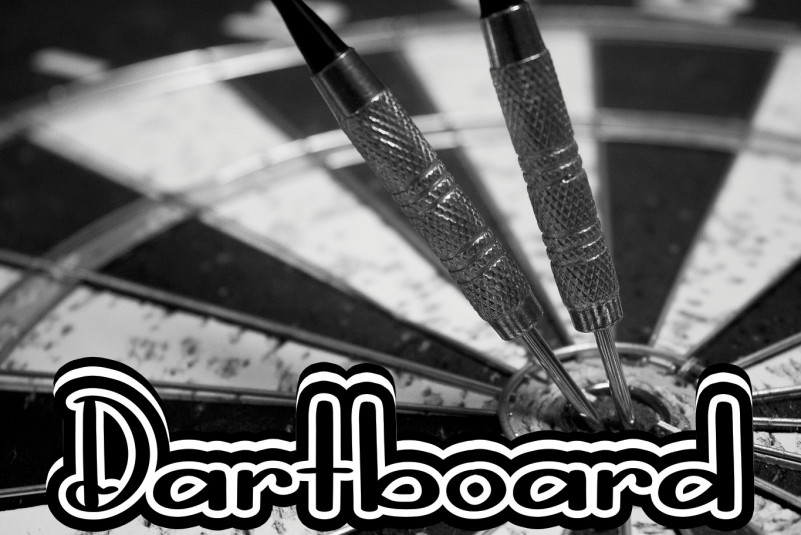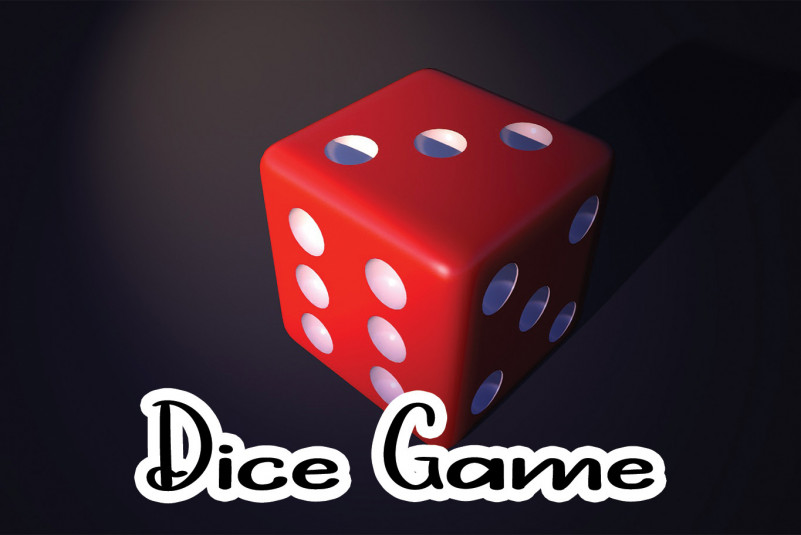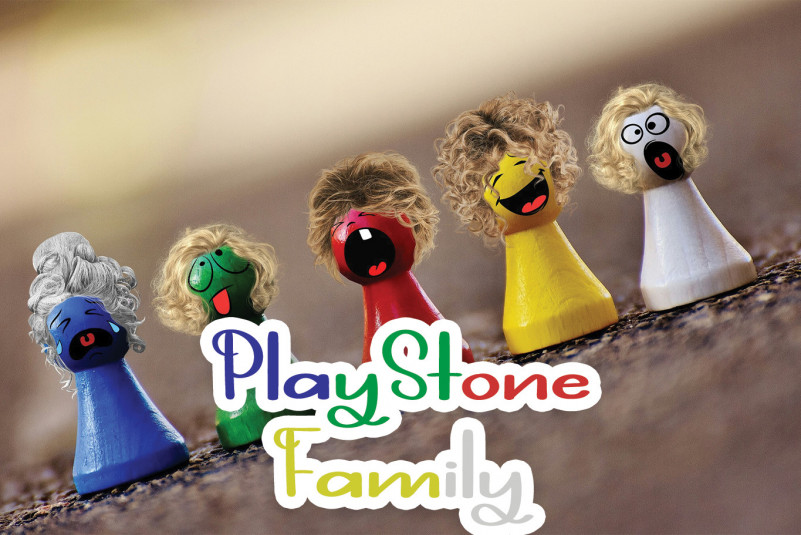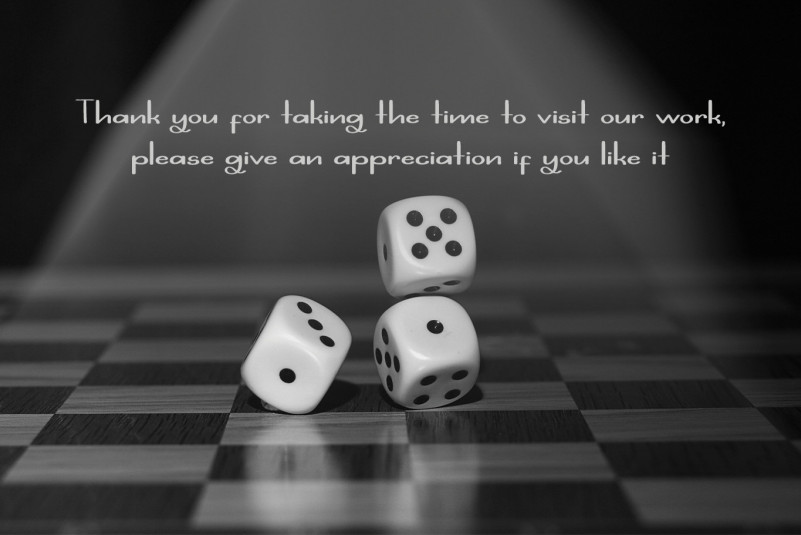
Playing Games Font
Playing Games Script Font
This is a cool, thin lettered, and friendly handwritten font. With its sweet and lively characters, this typeface is a wonderful choice for brightening up your designs!